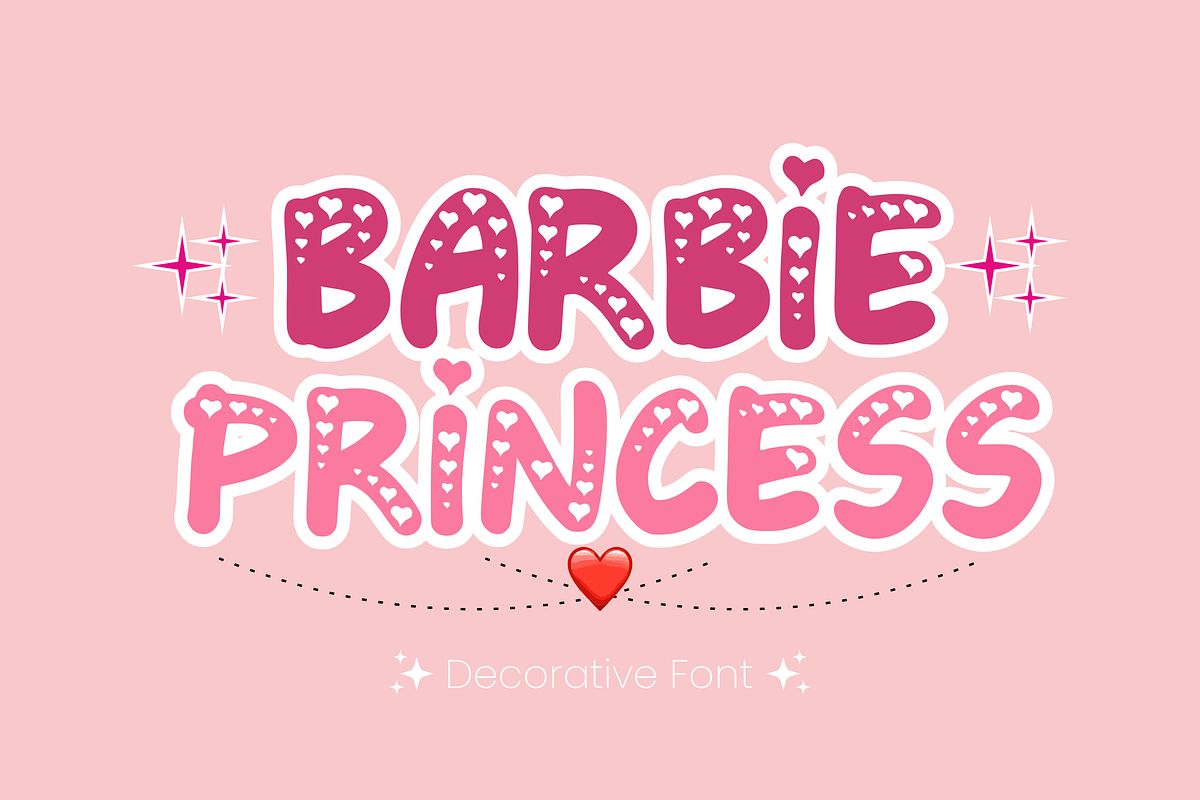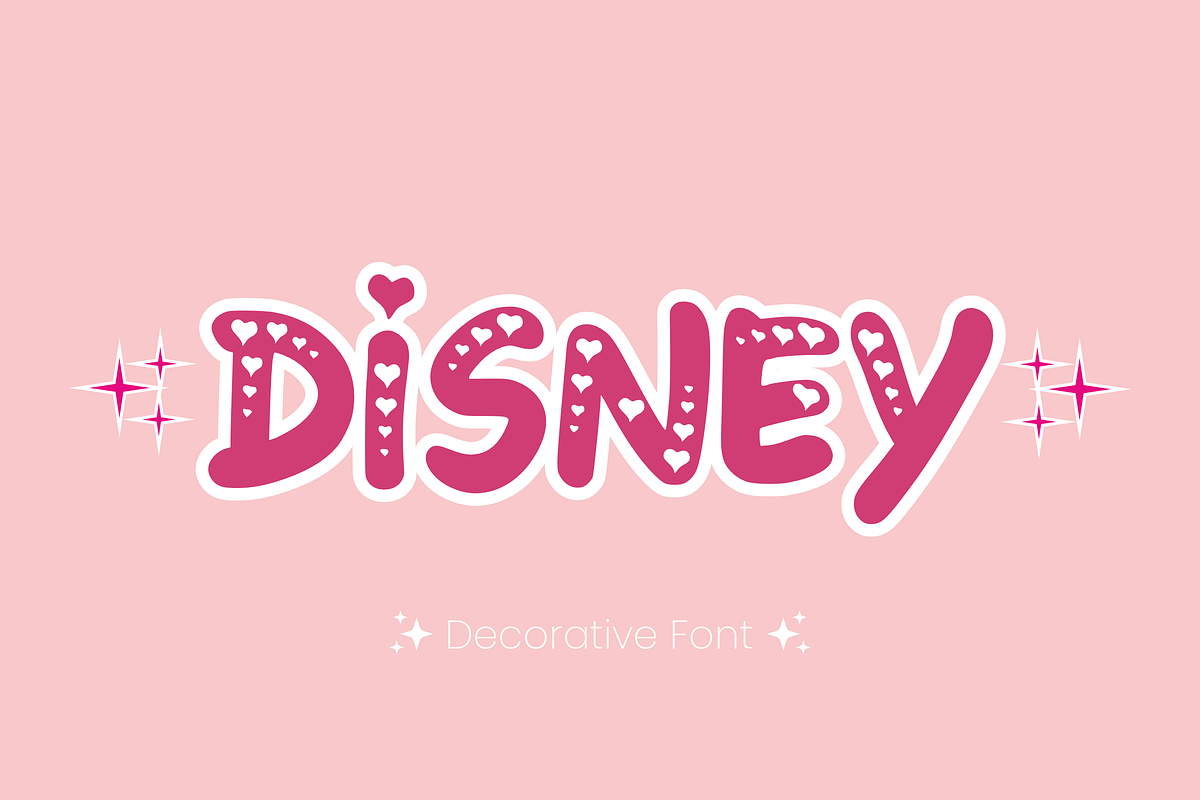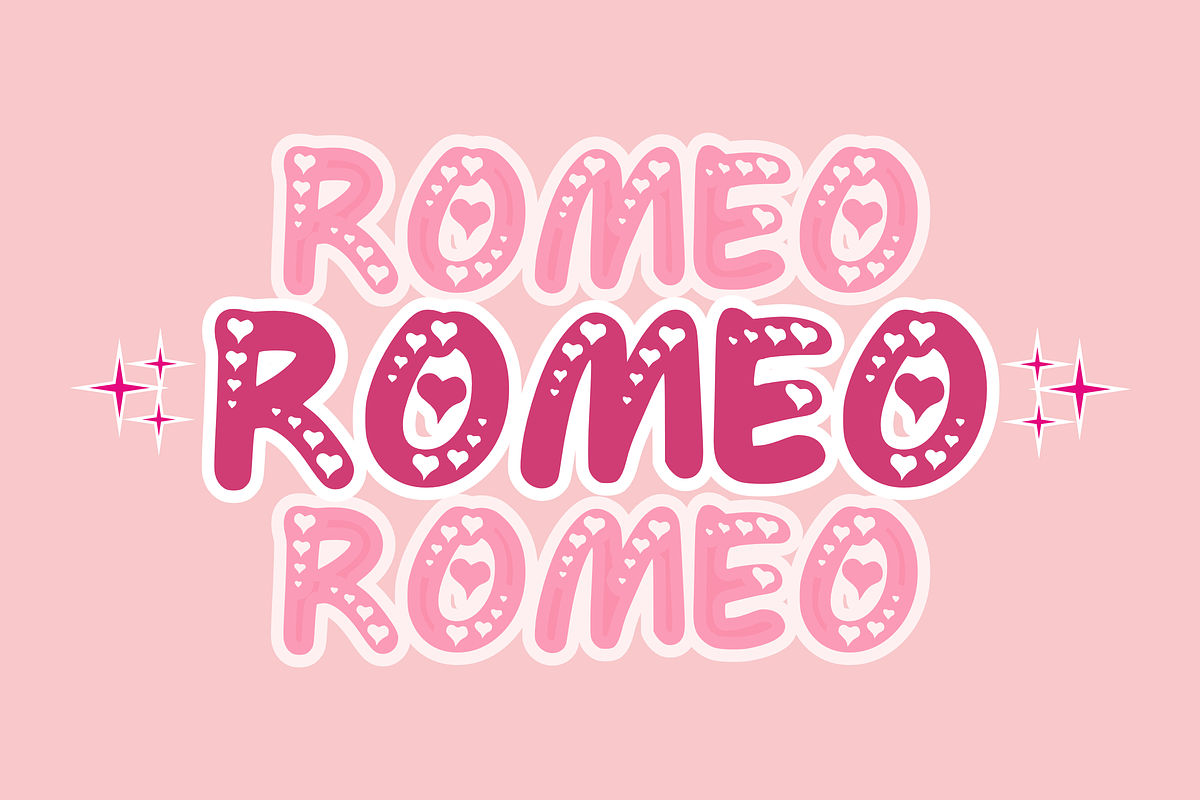
Barbie Princess - Disney Font Types
Discover the enchanting allure of “Barbie Princess”, a captivating typeface designed with the essence of sweetness and beauty synonymous with its title. Every individual character reflects an element of romantic charm, rendering it uniquely recognizable. Ideal for bringing creative invention to the forefront, this font complements sublimation design across a variety of mediums from t-shirt prints, coffee mugs, and tote bags, to animated projects, comics, invitations, and heartfelt greeting cards. Stretch your creative boundaries as you craft with Barbie Princess and keep supporting our artistic journey through likes and follows, which fuels our inspiration to continually bring forth new and diverse typefaces. Your appreciation keeps our creative spirits high. Thank you!